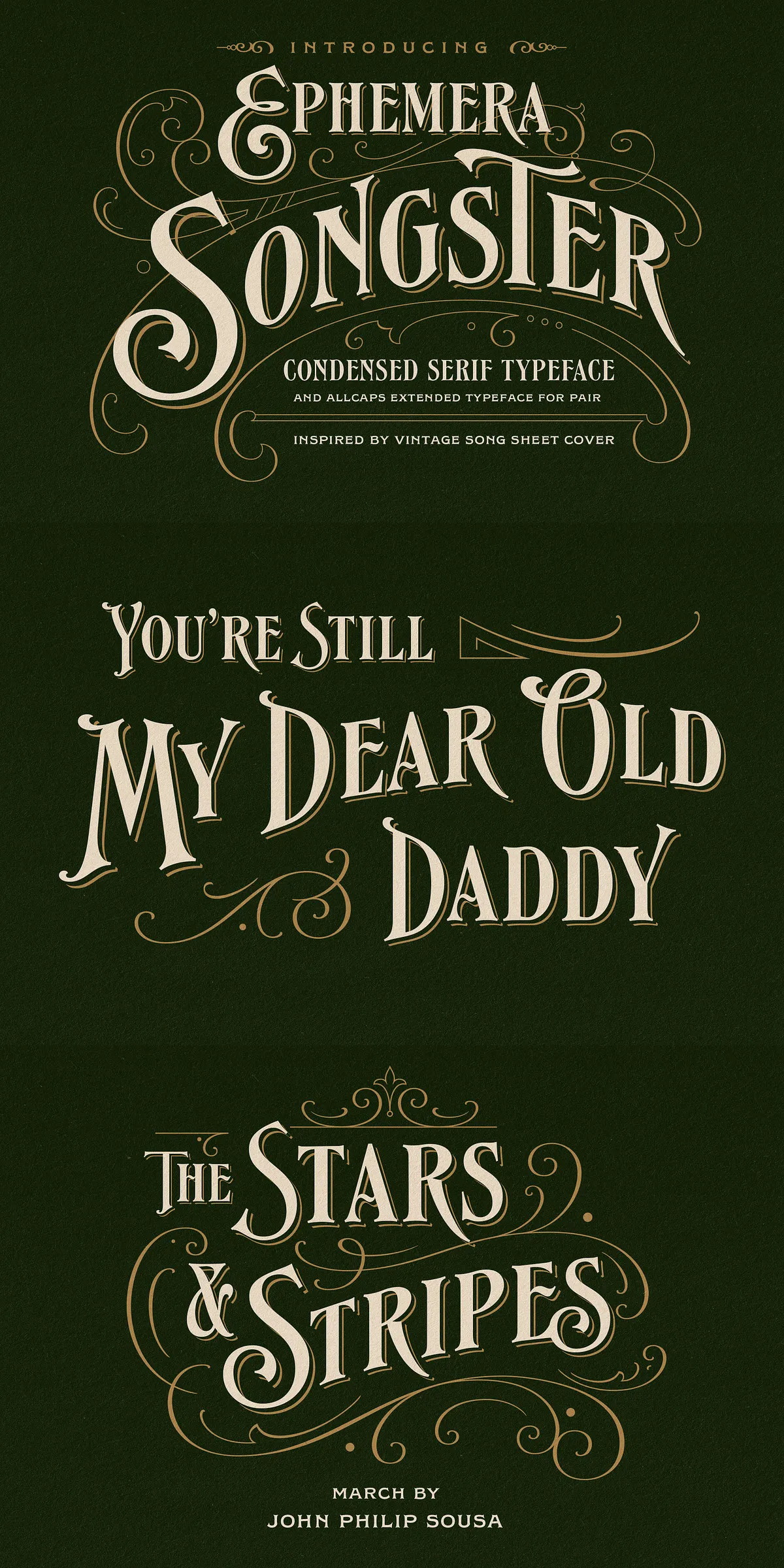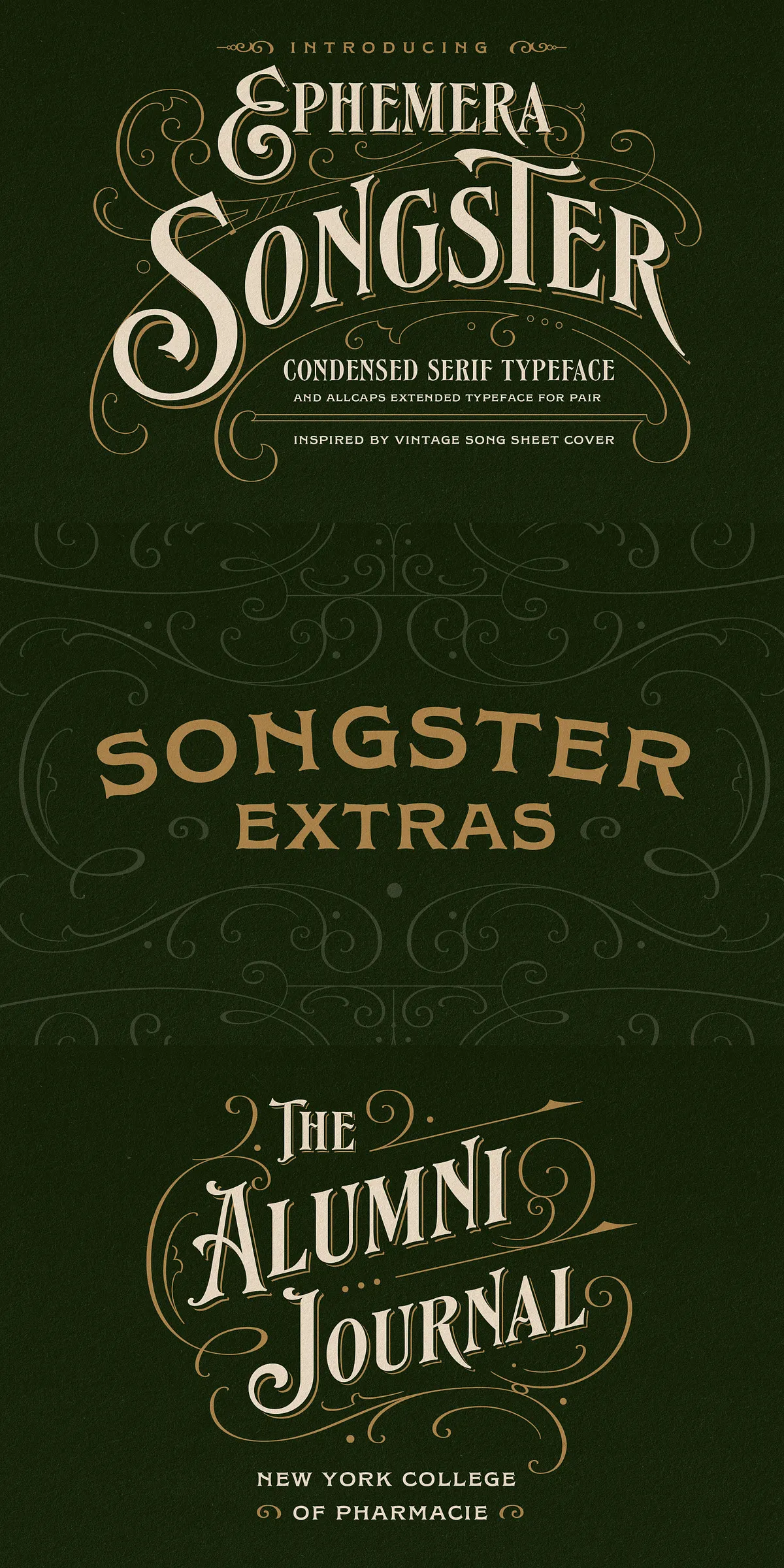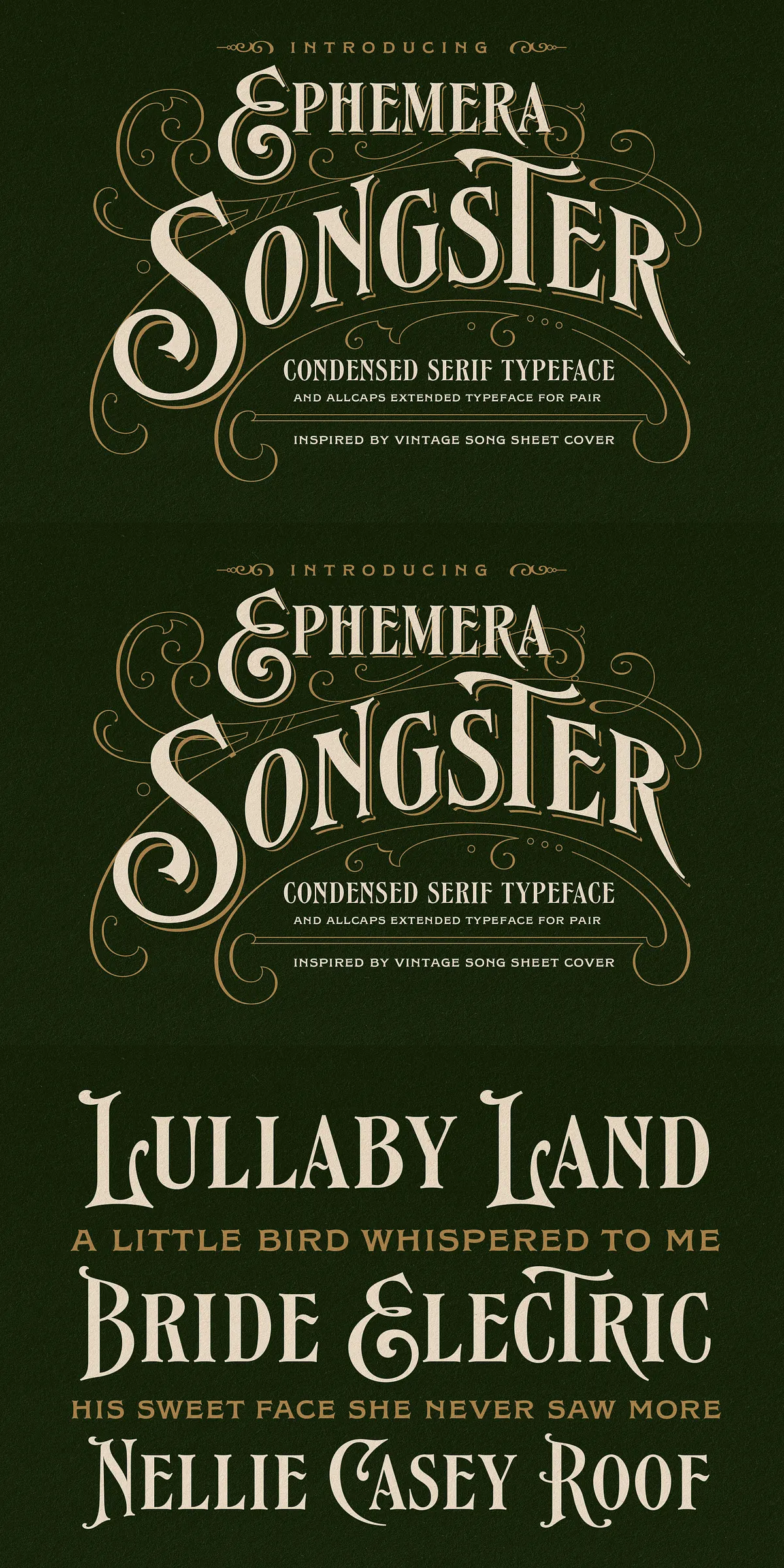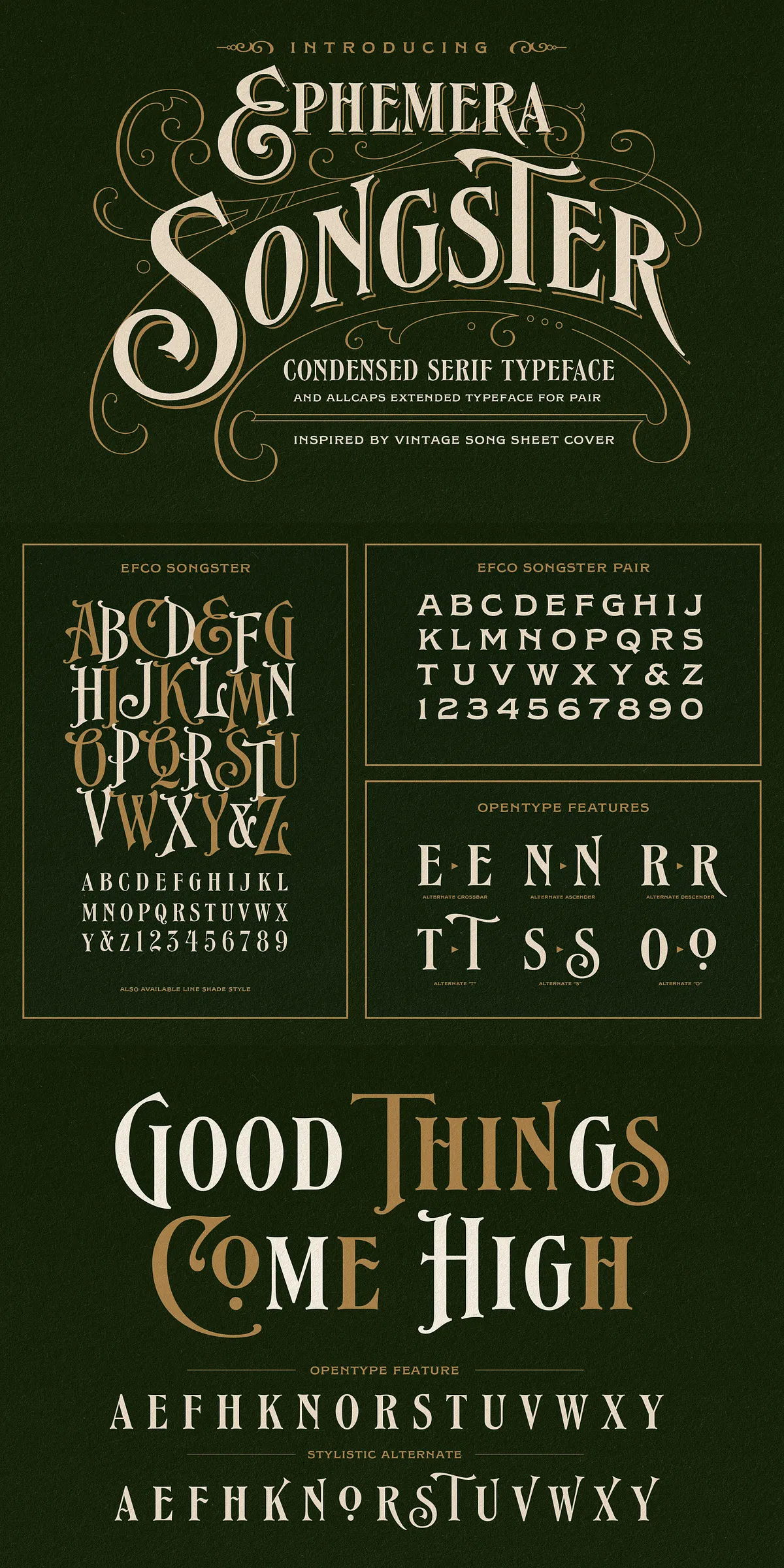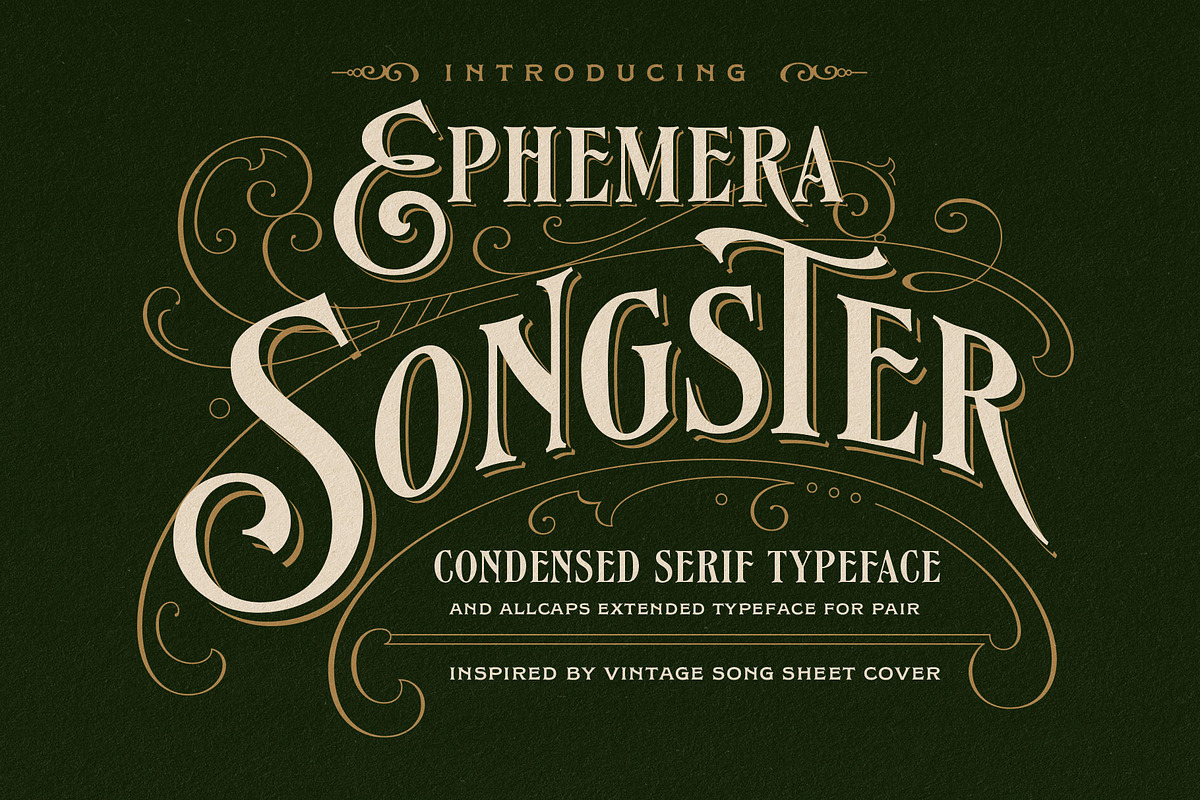
Introducing Songster, a beautifully crafted serif typeface inspired by the vintage song sheet covers of the 19th century. This typeface captures the nostalgic essence of classic typography with its striking contrast between thick and thin strokes, delivering a bold yet elegant presence. Designed to bring a unique personality to your projects, Songster is perfect for a wide range of display needs including signage, posters, logos, labels, headlines, and cover designs.
Distinctive Styles and Versatility
Songster comes with two distinct all-caps styles: Regular and Line Shade. The Regular style offers a clean, strong serif look that commands attention, while the Line Shade style adds depth and texture with its shaded lines, evoking the authentic feel of vintage print techniques. Together, these styles provide designers with versatile options to create eye-catching and memorable typography compositions.
Additional Pair Font and Ornament Extras
To further enhance your creative possibilities, Songster includes a complementary pair font and a set of ornament extras. The pair font is designed to harmonize perfectly with the main styles, allowing you to mix and match for dynamic typographic layouts. The ornament extras offer decorative elements that can be used to embellish your designs, adding an extra layer of vintage flair and sophistication.
Advanced OpenType Features for Unique Typography
Songster supports a range of OpenType features, including stylistic alternate characters that enable you to customize your typography with unique letterforms. These features allow you to infuse your text with personality and flair, making each composition truly one-of-a-kind. Whether you want to add subtle variations or bold stylistic touches, Songster’s OpenType capabilities provide the flexibility to elevate your design work.
Ideal Applications for Songster
Songster’s vintage charm and versatile styles make it an excellent choice for a variety of creative projects, including:
- Signage: Create bold and memorable signs that stand out with classic elegance.
- Posters: Design striking posters that capture attention with vintage-inspired typography.
- Logos and Branding: Develop unique brand identities that convey timeless style and personality.
- Labels and Packaging: Add a nostalgic touch to product packaging and labels.
- Headlines and Covers: Craft compelling headlines and cover designs that demand notice.
Why Choose Songster?
Songster is more than just a typeface; it is a tribute to the rich history of vintage typography, reimagined for modern design needs. Its combination of thick and thin strokes, multiple styles, and decorative extras offers designers a comprehensive toolkit to create sophisticated and engaging visual narratives. The inclusion of OpenType features ensures that your typography can be as unique and expressive as your creative vision.